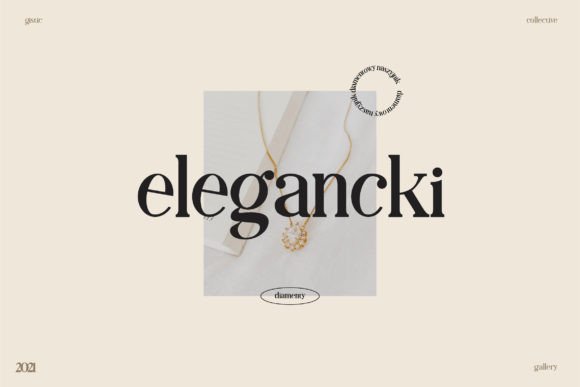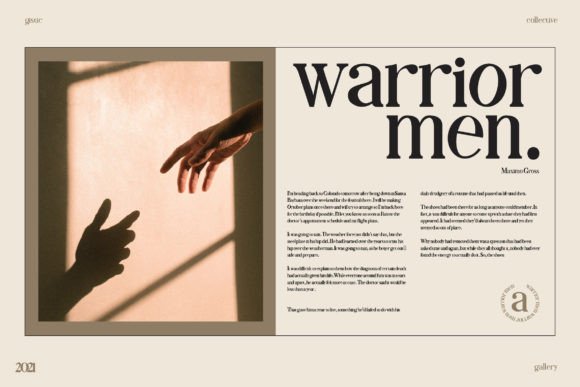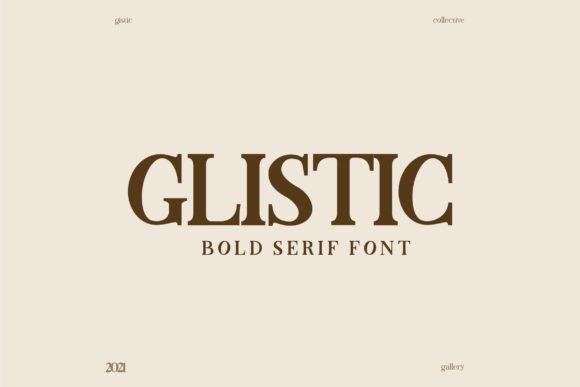
Introducing Glistic Font: A Timeless Serif Typeface for Elegant Designs
In the world of typography, some fonts stand out for their classic appeal and versatility. Glistic Font is one such typeface that seamlessly blends bold, classic aesthetics with traditional charm. Designed to cater to diverse design needs, Glistic is a robust serif font that excels in various applications, from magazines and large title posters to a wide range of design projects.
The Essence of Glistic Font
Glistic Font is a testament to the enduring elegance of classic typography. Its bold and robust letterforms evoke a sense of timeless sophistication, making it an ideal choice for designers seeking a typeface that can add a touch of refinement to their projects. Whether you’re working on a magazine layout, a poster, or any other design project, Glistic ensures that your content exudes elegance and poise.
Key Features of Glistic Font
- Bold and Robust Letterforms: Glistic’s serif design is characterized by its bold and robust letterforms, which give it a commanding presence on any design medium.
- Timeless Aesthetics: The font’s classic appeal ensures that it remains relevant across different design trends, making it a valuable addition to any designer’s toolkit.
- Versatility: Glistic is available in multiple options, allowing designers to choose the style that best suits their project’s requirements.
- Elegance: The font’s traditional charm and sophistication make it perfect for projects that demand a touch of elegance, such as magazine layouts and attention-grabbing posters.
Applications of Glistic Font
Glistic’s versatility and classic appeal make it suitable for a wide range of design applications. Here are some of the areas where Glistic truly shines:
Magazine Layouts
Magazines require a font that can convey authority and elegance while being easy to read. Glistic’s serif design and bold letterforms make it an excellent choice for magazine layouts, ensuring that headlines, subheadings, and body text all exude a sense of sophistication.
Large Title Posters
For large title posters, a font that can grab attention and convey a sense of grandeur is essential. Glistic’s robust design and classic appeal make it perfect for creating visually striking posters that demand attention.
Design Projects
Beyond magazines and posters, Glistic can be used in a variety of design projects, including branding, packaging, and digital media. Its timeless aesthetics ensure that it can adapt to different design trends, making it a valuable asset for any designer.
Why Choose Glistic Font?
Choosing Glistic Font for your design projects comes with several benefits:
- Timeless Appeal: Glistic’s classic design ensures that your projects remain relevant and stylish for years to come.
- Versatility: With multiple style options available, Glistic can be tailored to suit a wide range of design needs.
- Elegance: The font’s traditional charm and sophistication make it perfect for projects that require a touch of elegance.
- Readability: Despite its bold design, Glistic remains highly readable, making it suitable for both headlines and body text.
Glistic Font is a robust serif typeface that combines the best of classic aesthetics with traditional charm. Its bold and robust letterforms, timeless appeal, and versatility make it an excellent choice for designers seeking a typeface that can add elegance and sophistication to their projects. Whether you’re working on magazine layouts, large title posters, or any other design project, Glistic ensures that your content exudes elegance and poise. With its commanding presence and traditional charm, Glistic stands as a testament to the enduring elegance of classic typography.